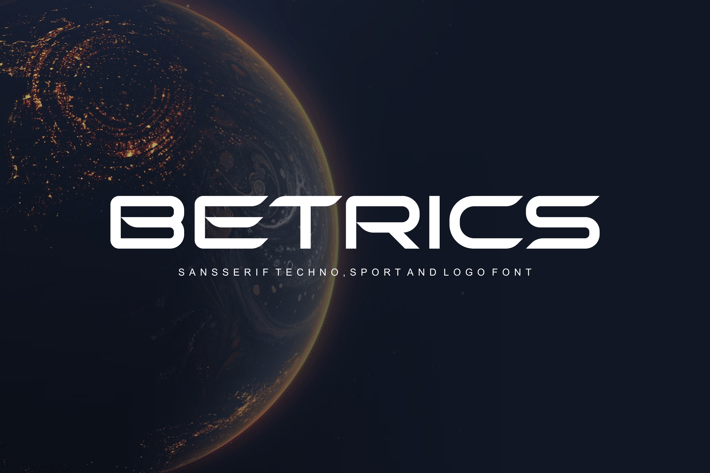
Betrics - Sans Serif Techno Sport and Logo Font
Introducing our new product Betrics Font - Modern Font
Betrics Font- Modern Font is a bold and authentic display font. The font is suitable for any branding project like logo,
t-shirt printing, esport, and many more. outstanding in a wide range of contexts.
* Betrics Uppercase